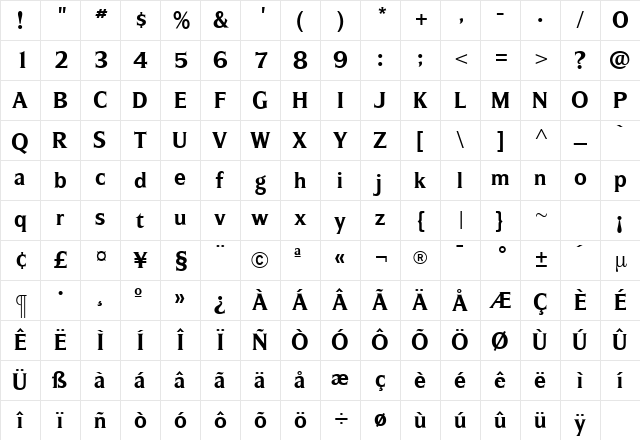
SilveradoBold Roman Free Font
SilveradoBold Roman
Design Context for SilveradoBold
SilveradoBold is a composed and adaptable typeface that performs quietly and consistently across a wide range of design contexts. Its bold stroke weight gives it real presence on the page.